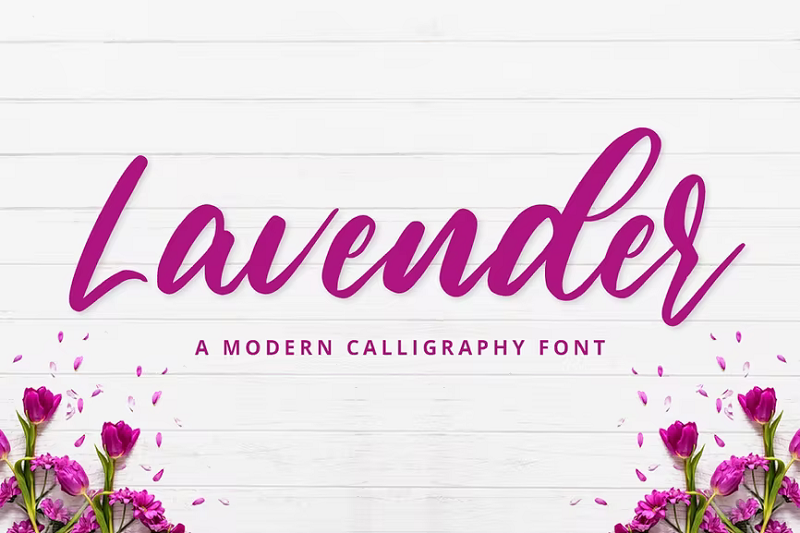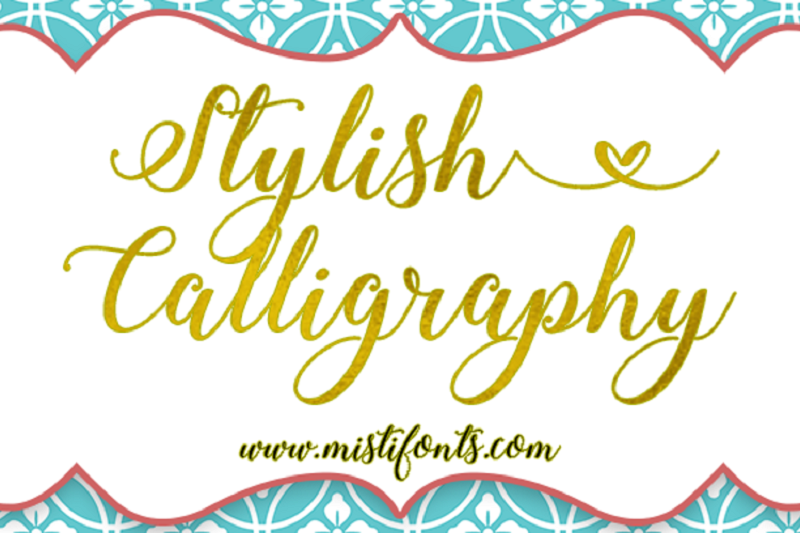
26 Best Calligraphy Fonts for 2022 (Free & Premium)
If you’re hoping to add a touch of elegance to your designs, calligraphy fonts are the way to go.
These stylish, classy fonts are designed to resemble graceful handwriting. They look as if they were drawn by hand with a flat-tipped pen or brush and typically include ornamental flourishes and swashes to add character and sophistication.
Their elegant, handwritten style makes them ideal for things like wedding invitations, poems, and greetings cards, but they can also work well on many other kinds of designs including posters, book covers, and more.
In this post, we’ll be sharing what we think are the 26 best calligraphy fonts on the market. We made sure to include both free and premium fonts and tried to select a wide range of styles, so you should be able to find something that fits your needs on this list.
26 Best Calligraphy Fonts
1. Wonderful Calligraphy – Our Top Pick
#1 calligraphy font
Our overall favorite calligraphy font is Wonderful Calligraphy by RockboyStudio. It’s a light, modern, handwritten font with elegant front and back swashes and exaggerated looping ligatures. It’s PUA encoded and comes in TTF, OTF, and WOFF format.
Why it’s our top pick
There’s a reason this is the most popular calligraphy font on Envato Elements. It’s very delicate and elegant, which is what most people are looking for in calligraphy fonts. It has a luxurious, feminine aesthetic that’s perfect for luxury brand logos, skincare product packaging, and other classy designs.
2. Elizabeth
Elizabeth - a modern calligraphy font
Elizabeth by Krafted is another beautiful calligraphy font that radiates elegance and femininity. It’s inspired by the Victorian era and uses thicker strokes than our top pick, which makes it a little more readable, so it’s great for standout headings and Instagram quotes. It’d also look really nice on invitations, business cards, and greetings cards.
3. Everything
Everything calligraphy font
Everything by Alde Design is one of the most romantic calligraphy fonts we’ve seen. It’s a very feminine font with beautiful swashes. The beginning and ending tail flourishes loop around to create delicate heart shapes. Try using it on your Valentine’s day card designs to impress your special someone.
4. Stylish Calligraphy Font
Stylish calligraphy font
Here’s another stylish calligraphy font by designer Misti’s Fonts. We really like the contemporary design and soft strokes. You also get some neat swashes that you can use to spice up your typography. For example, typing an asterix will create an elegant heart swirl at the end, which you can use to decorate the composition.
5. Everline
Everline is a modern inline script font by Blankids. The double line strokes are really cool and add visual interest that makes this font stand out amongst other calligraphy fonts. It’s perfect for displays, wedding invitations, and logotypes.
6. Fukushima
Fukushima is another great calligraphy font with a distinctly Japanese twist. It has a distinctive character and is thicker and less decorative than other fonts on this list. This makes it very readable and versatile, so it’s a good fit for a wide variety of designs. Try using it in your website headers and banners, or maybe in your YouTube thumbnails.
7. Billion Dreams
Billion Dreams
Billion Dreams is a free calligraphy typeface designed by Mans Grebäck and Rangga Subekti. Its edgy, stylish, hipster-esque aesthetic would be a good fit for coffee shop branding, fast food logos and displays, and any other trendy design. Billion Dreams comes with extra ligatures, alternates, and swashes. To add swashes, you can type an underscore, which will bring up a selection for you to choose from.